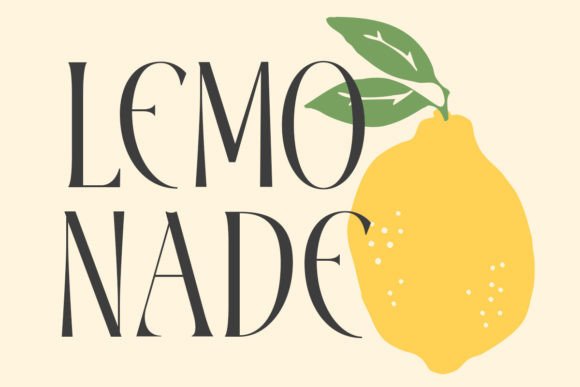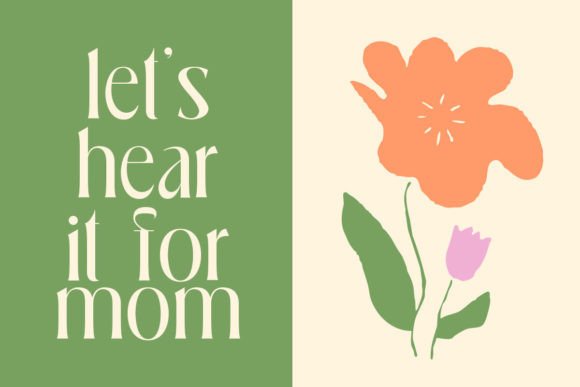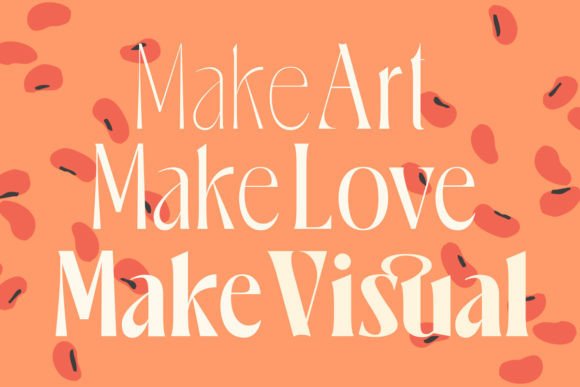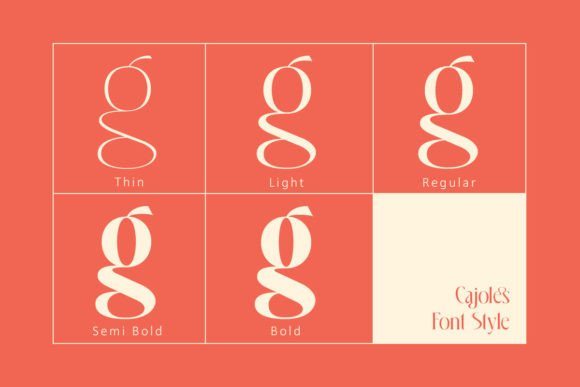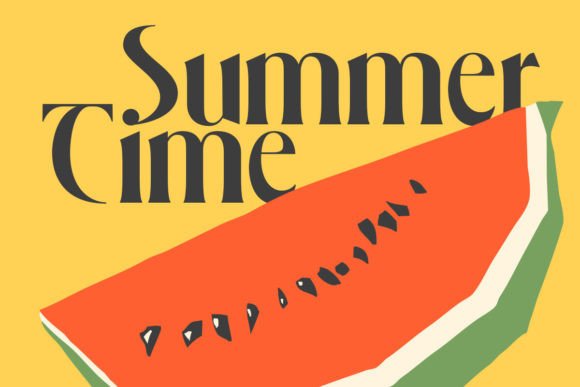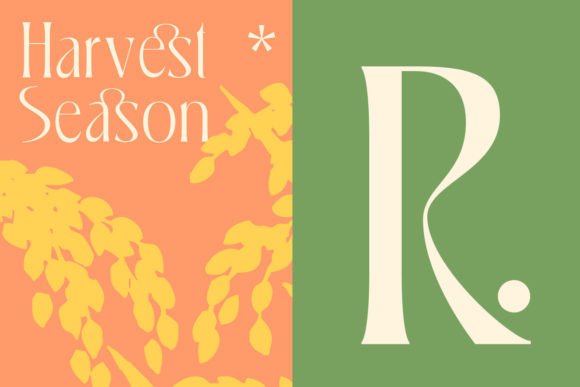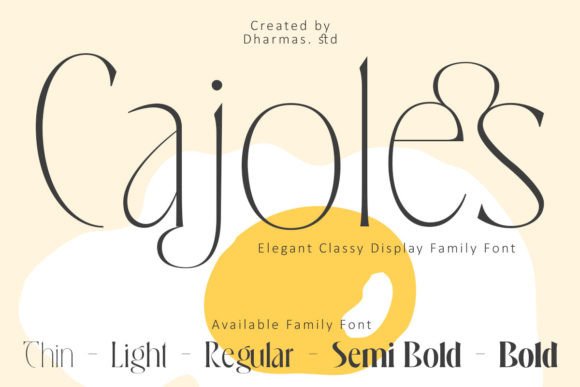
Introducing Cajoles Font: A Modern Typeface Inspired by Art Nouveau Elegance
In the world of typography, few typefaces manage to capture the essence of Art Nouveau’s elegance while infusing it with a modern twist. Cajoles Font is one such remarkable creation, drawing its inspiration from the sophistication of 1910s Italian lake posters. This brand-new modern typeface family seamlessly blends an Art Nouveau flair with contemporary design, making it a standout addition to any designer’s toolkit.
The Inspiration Behind Cajoles
Cajoles Font finds its roots in the romanticism of the early 20th century, specifically the Art Nouveau movement that swept through Europe. Characterized by its use of sinuous, organic lines and a sense of dynamism, Art Nouveau was a departure from the traditional and the ordinary. It was an era where design was not just about functionality but about evoking emotions and telling stories through elegant curves and lines.
The Italian lakes, with their breathtaking landscapes and serene beauty, served as the backdrop for a vibrant poster culture in the 1910s. These posters, known for their artistic sophistication and charm, were designed to capture the essence of a place and invite viewers to experience its beauty. It was from this rich visual heritage that Cajoles Font was born, embodying the perfect balance between eccentricity and delicacy, much like a garden in full bloom.
Design Characteristics of Cajoles Font
Cajoles is a display serif typeface, making it particularly well-suited for headlines and short to medium-length texts. Its design is a masterful blend of classic Art Nouveau elements with a contemporary aesthetic. The typeface features five weights: Thin, Light, Regular, Semi Bold, and Bold, offering versatility for a wide range of design applications.
One of the defining features of Cajoles Font is its nonconformist, romantic, and delicate character. The typeface boasts extravagant alternates that add a layer of sophistication and uniqueness to any text. Its curves are uniquely designed to create a rhythmic and timeless elegance, making it perfect for projects that demand a touch of luxury and refinement.
The Bold Version: High Contrast and Maximum Visibility
The Bold version of Cajoles Font stands out with its high contrast, ensuring maximum visibility. This makes it particularly effective for headlines and titles where making a statement is crucial. Despite its boldness, it retains the delicate and romantic essence of the typeface, offering a balanced approach to typography that is both eye-catching and elegant.
Why Choose Cajoles Font?
For designers and crafters looking for a typeface that embodies both modernity and classic elegance, Cajoles Font is an excellent choice. Its unique design ensures that your projects stand out, whether you’re working on a branding campaign, a website, or print materials. The typeface’s ability to convey a sense of romance and delicacy, combined with its bold statement capabilities, makes it highly versatile.
Cajoles Font is not just a typeface; it’s a design statement. It brings with it the charm of a bygone era, infused with a modern sensibility that ensures your designs are both current and timeless. With Cajoles, you can add a touch of Art Nouveau elegance to your projects, making them instantly memorable.
Using Cajoles Font in Your Designs
- Headlines and Titles: Use the Bold or Semi Bold weights for headlines and titles to grab attention and make a statement.
- Body Text: Opt for the Regular or Light weights for body text to maintain readability while adding a touch of elegance.
- Accentuate: Take advantage of the extravagant alternates to add a unique flair to your text.
Cajoles Font is a stunning addition to the world of typography, offering a fresh take on Art Nouveau elegance with a modern twist. Its unique blend of eccentricity and delicacy, combined with its versatility and readability, makes it an invaluable resource for designers and crafters alike. Whether you’re looking to add a touch of sophistication to your branding, create memorable headlines, or simply explore new typographic possibilities, Cajoles Font is sure to exceed your expectations.